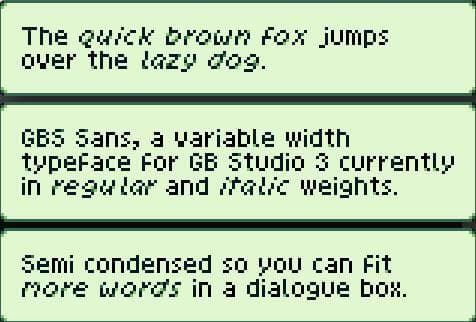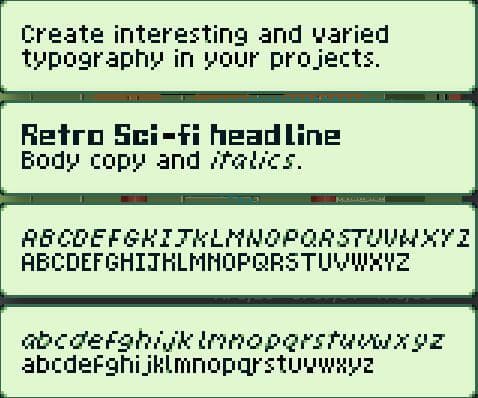
GB Sans is a variable width, semi condensed, sans serif typeface for use with GB Studio 3 available in (currently) two weights – RegularItalic This is a first version and Ill continue to work on and improve the letter forms (as I use and look at them more) and expand the typeface to include other variants such as bold. Open to all suggestions for improvements, just let me know in the comments! Background I wanted a variable width (not wide monospaced) typeface that could mix italics inline with regular for my next GB Studio project because I like doing that. GB Studio v3 opens up so many more ...